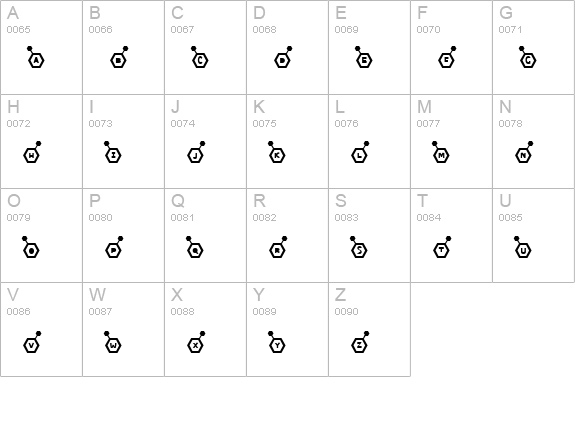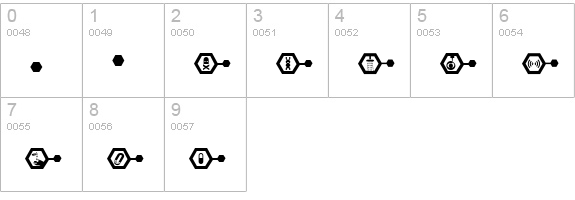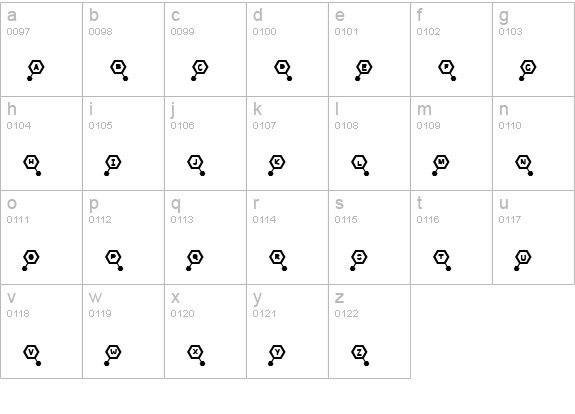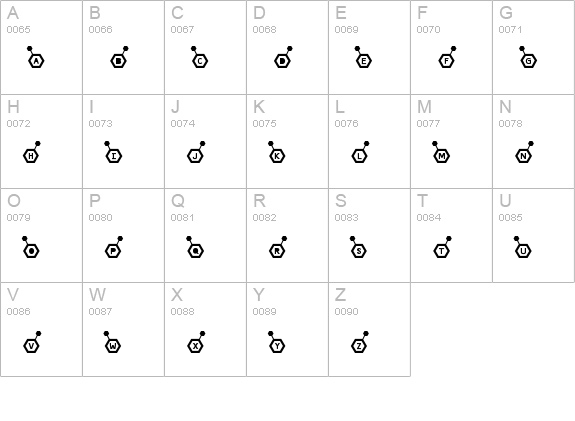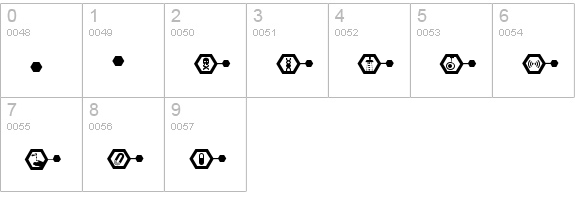
Microbe font is a sleek and modern typeface that is perfect for a wide range of design projects. With its clean lines and unique character shapes, Microbe font adds a touch of sophistication to any design. Whether you're creating a logo, branding materials, or a website, this font will help you stand out from the crowd. What makes Microbe font even more appealing is that it is completely free to use. You can download it at FontsMarket.com without any cost, making it a great choice for designers on a budget. Don't miss out on the opportunity to enhance your projects with the stylish Microbe font – download it today and see the difference it can make!